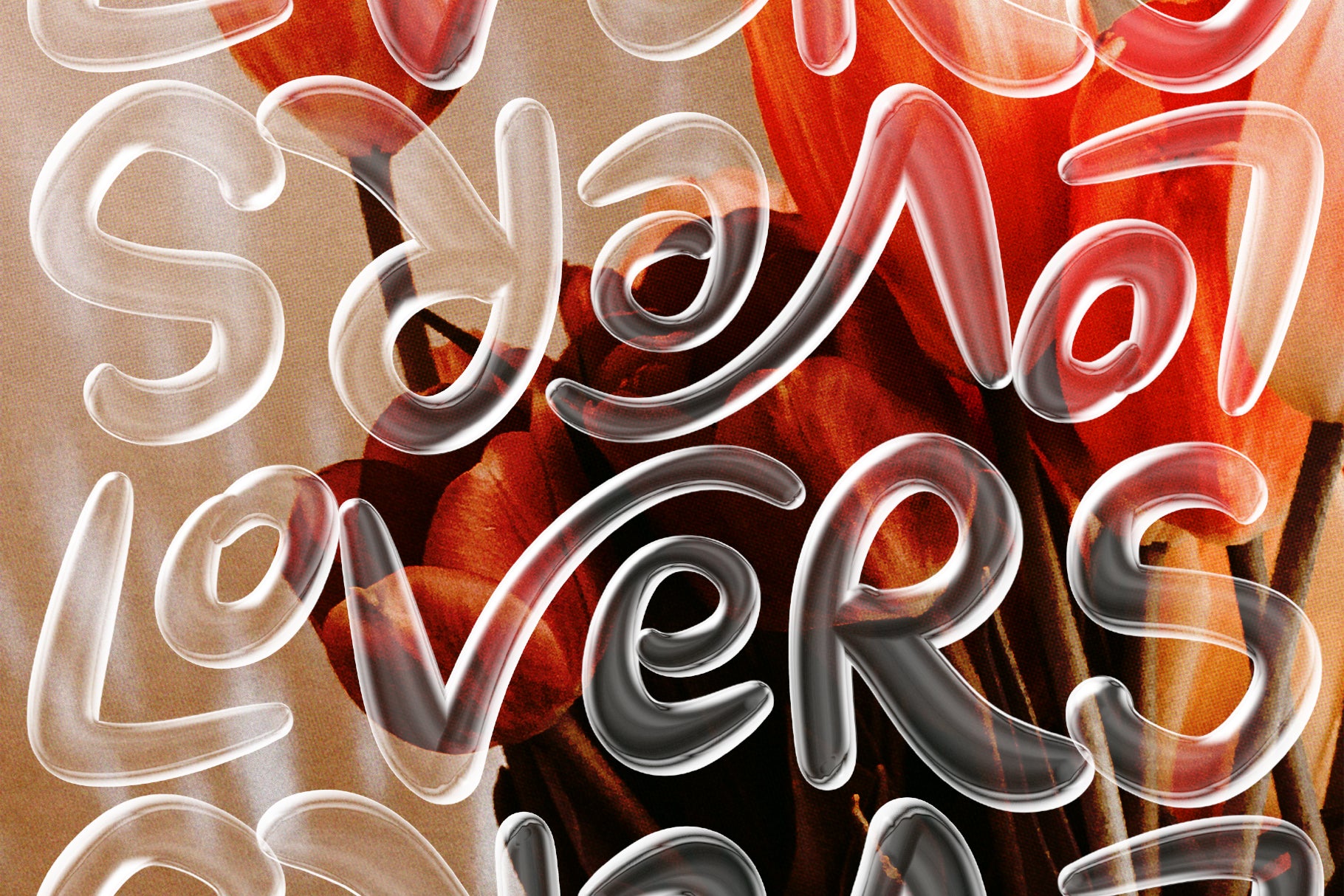
Get ready to refresh your designs with YOUTH MOJITO, a playful and truly unique 3D SVG font designed to add energy, dimension, and creativity to any project. With its lively, hand-painted bubble effect, this font is perfect for modern posters, vibrant social media graphics, bold website headers, stylish presentations, and even logos that need to stand out with a fresh perspective.
Created with meticulous attention to detail, YOUTH MOJITO captures the authentic look of hand-painted lettering while offering the flexibility of digital design. The SVG version delivers a stunning, realistic texture full of depth and character, while the included standard font version ensures maximum compatibility across all platforms and browsers.
Whether you’re designing eye-catching campaign visuals, playful product packaging, or vibrant branding, YOUTH MOJITO brings a joyful, high-impact energy to your typography.